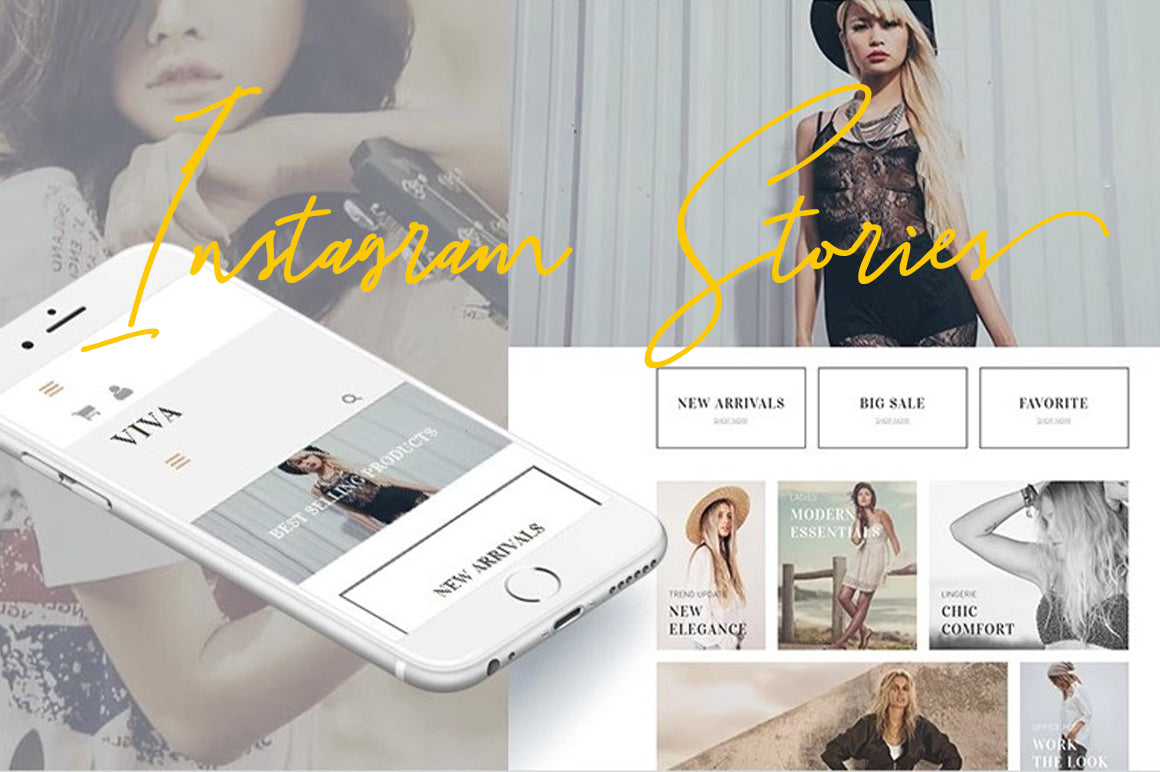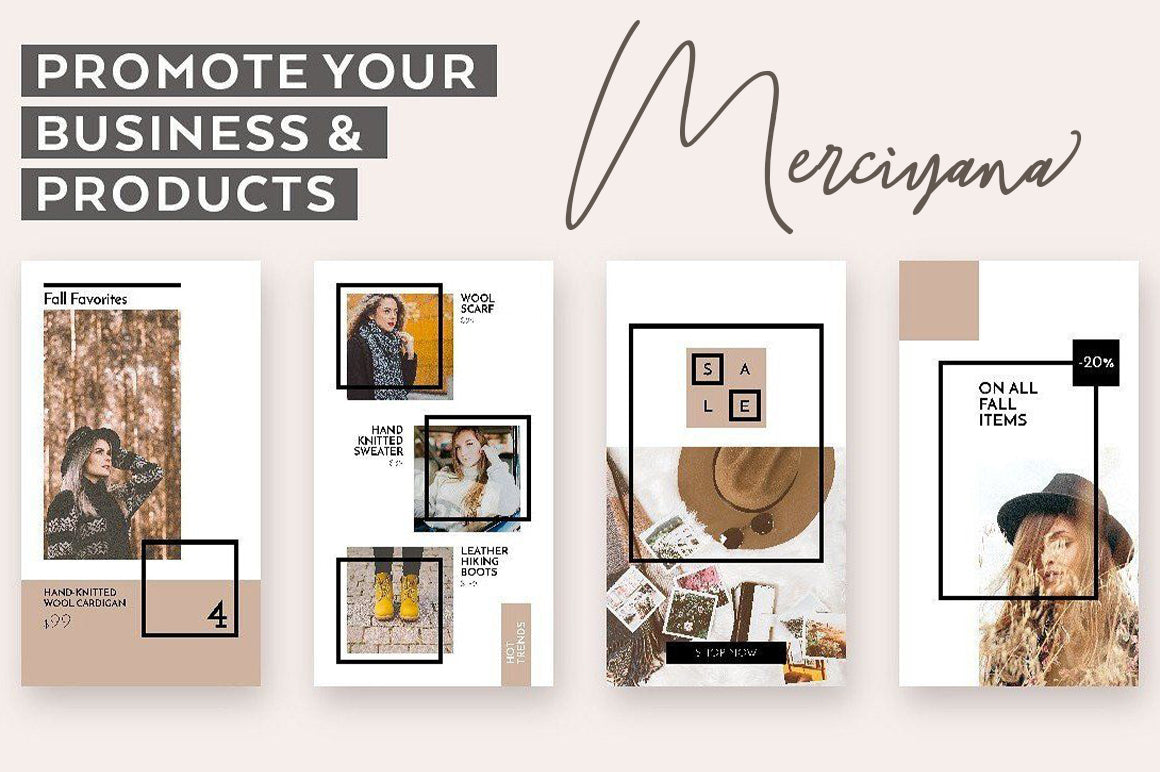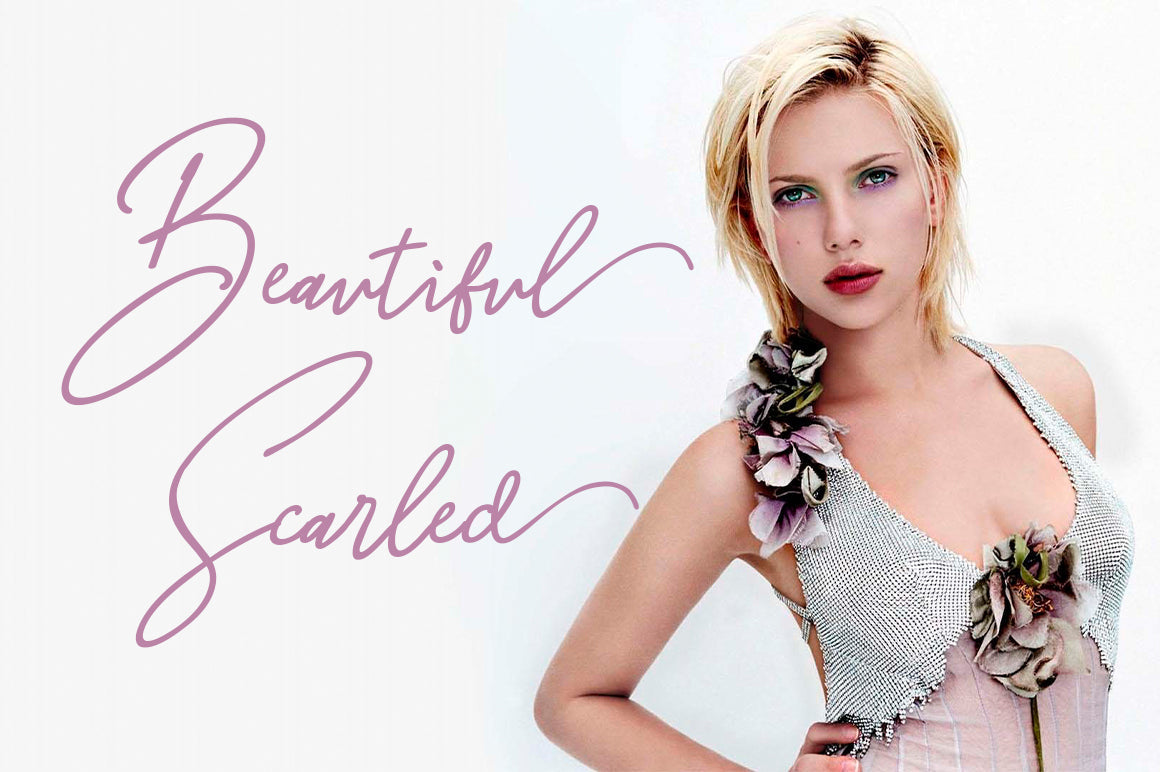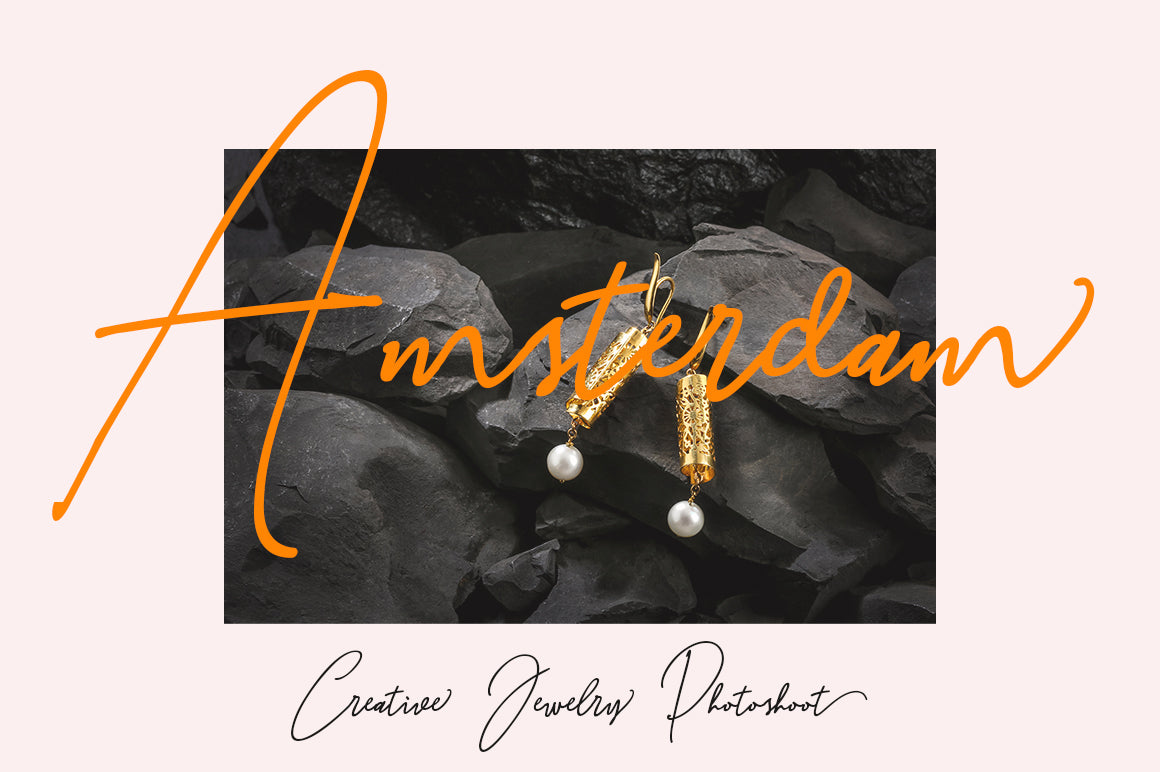
About Jolliresta
Jolliresta is a flowing handwritten font, described by an elegant touch, perfect for your favorite projects. Fall in love with its incredibly distinct and timeless style and use it to create spectacular designs! Jolliresta Font is encoded with PUA Unicode, which allows full access to all additional characters without having to design any special software. Mac users can use Font Book, and Windows users can use Character Map to view and copy additional characters to paste into their favorite text editor/app. Thank you so much for searching and letting me know if you have any questions